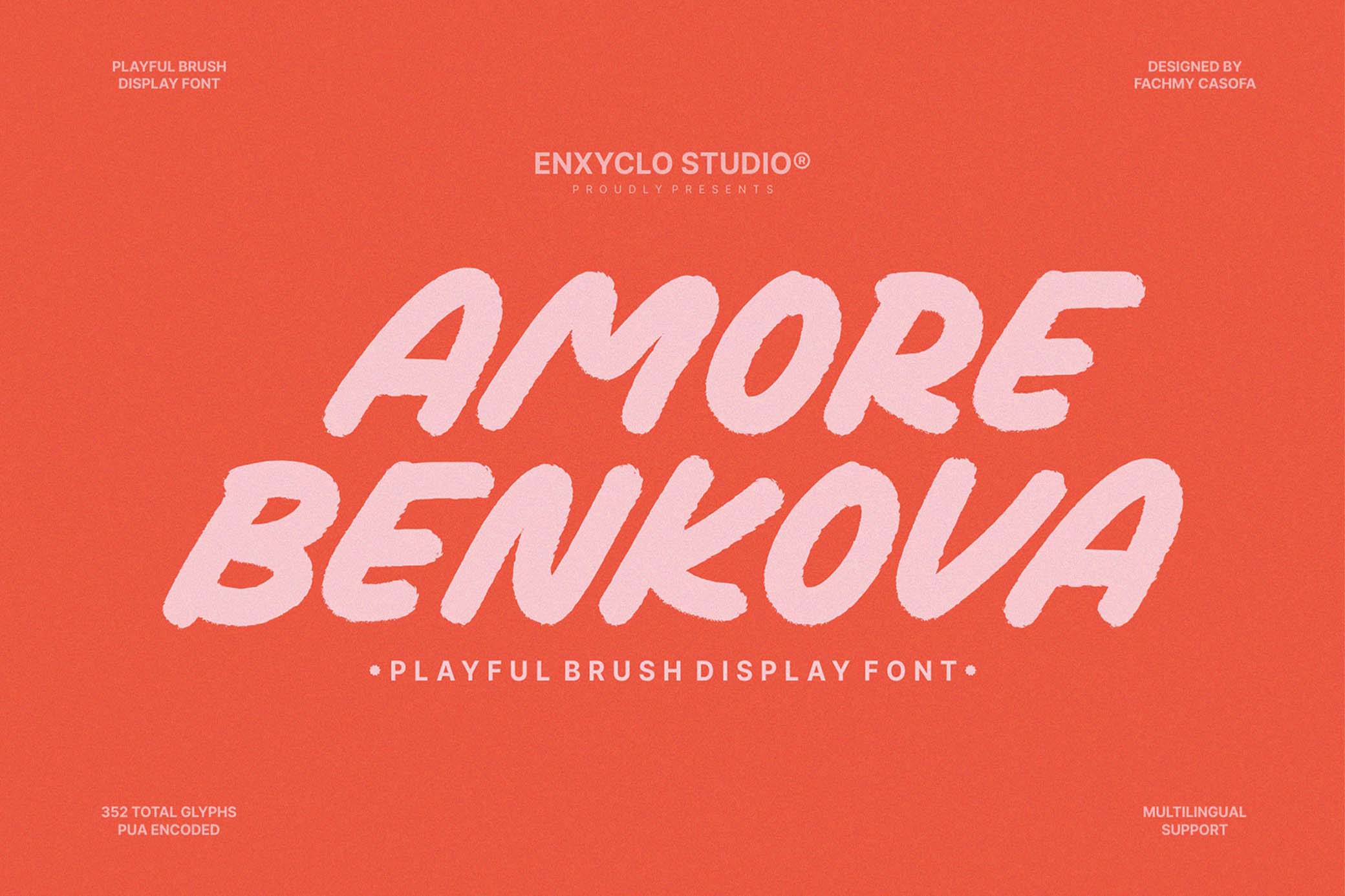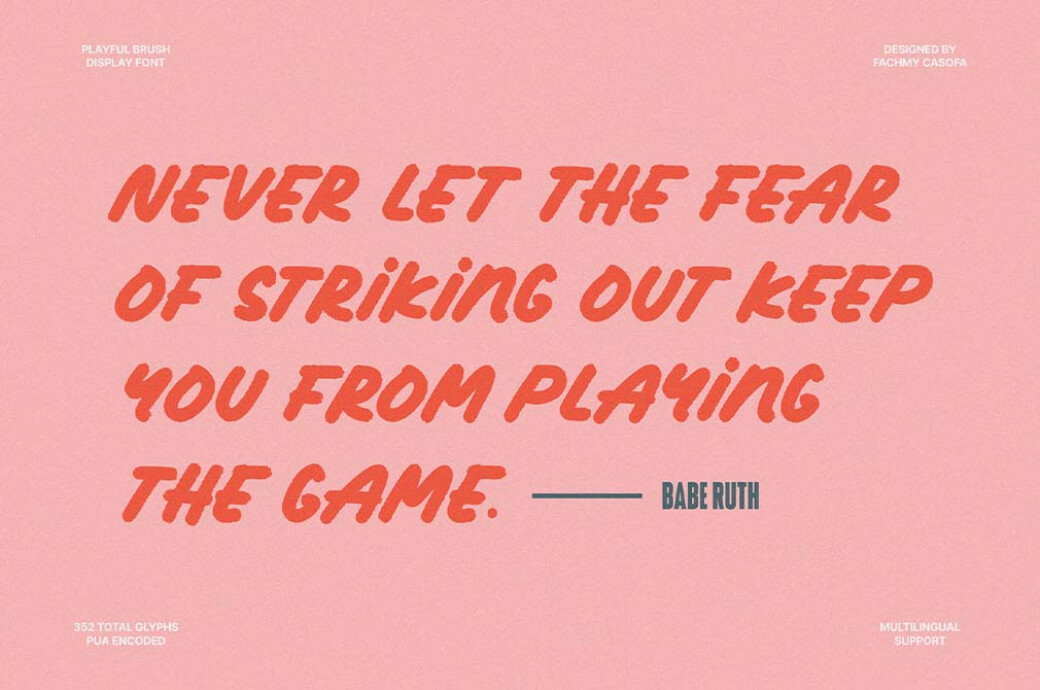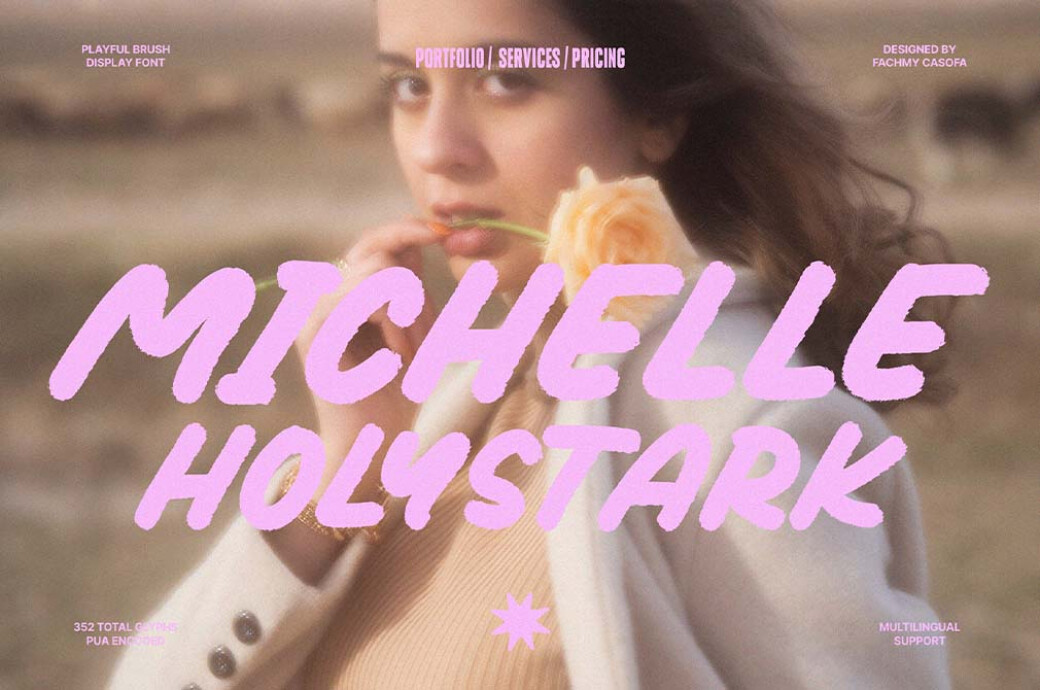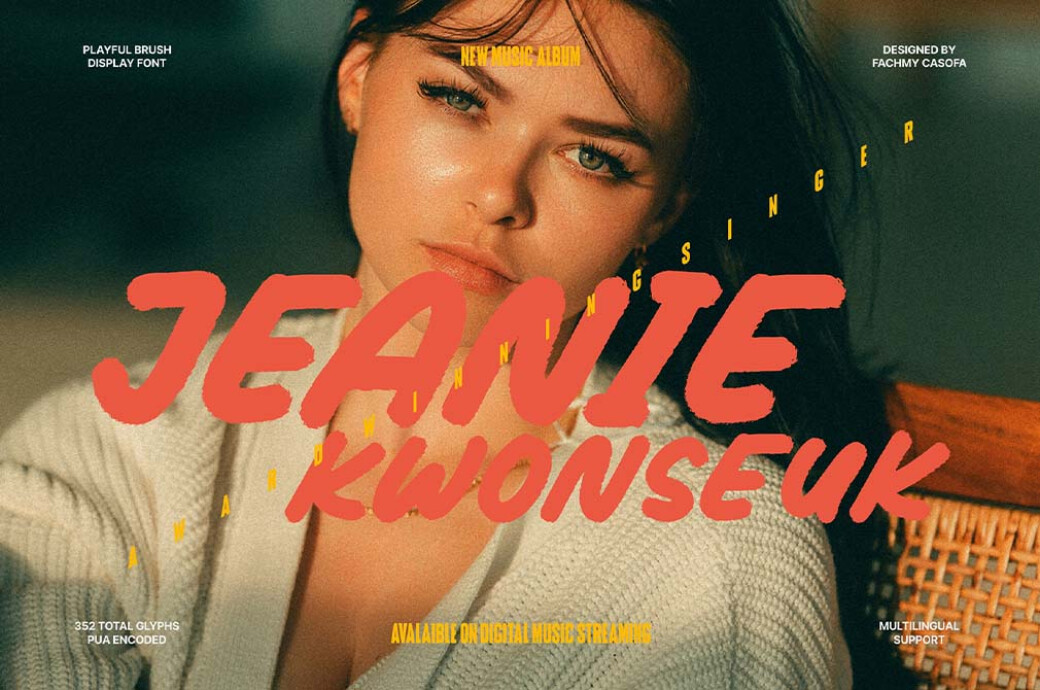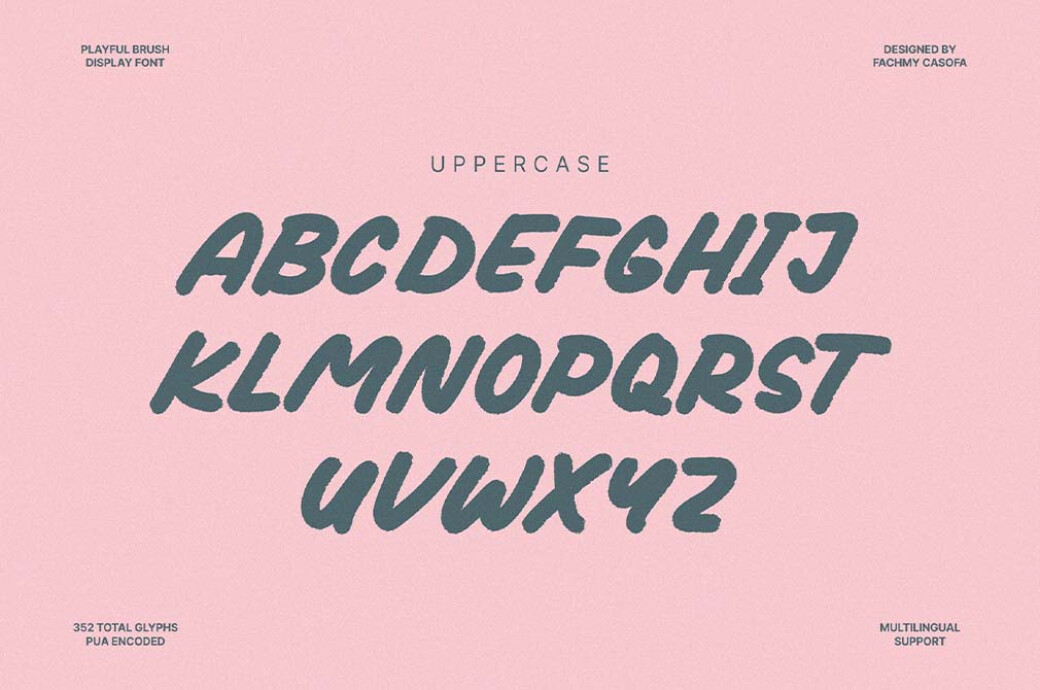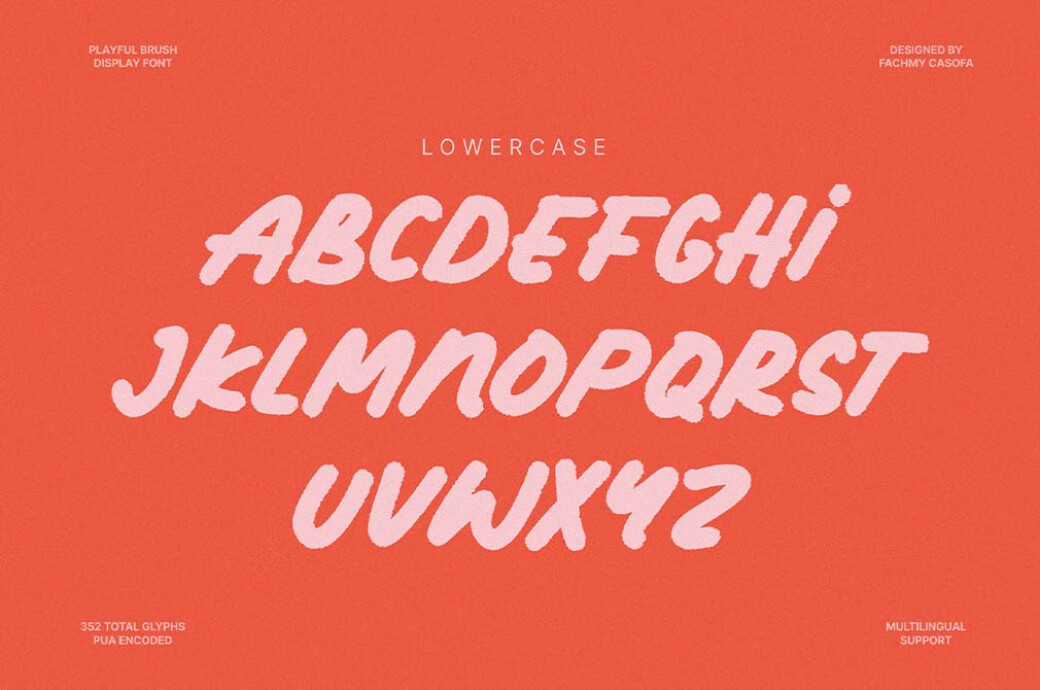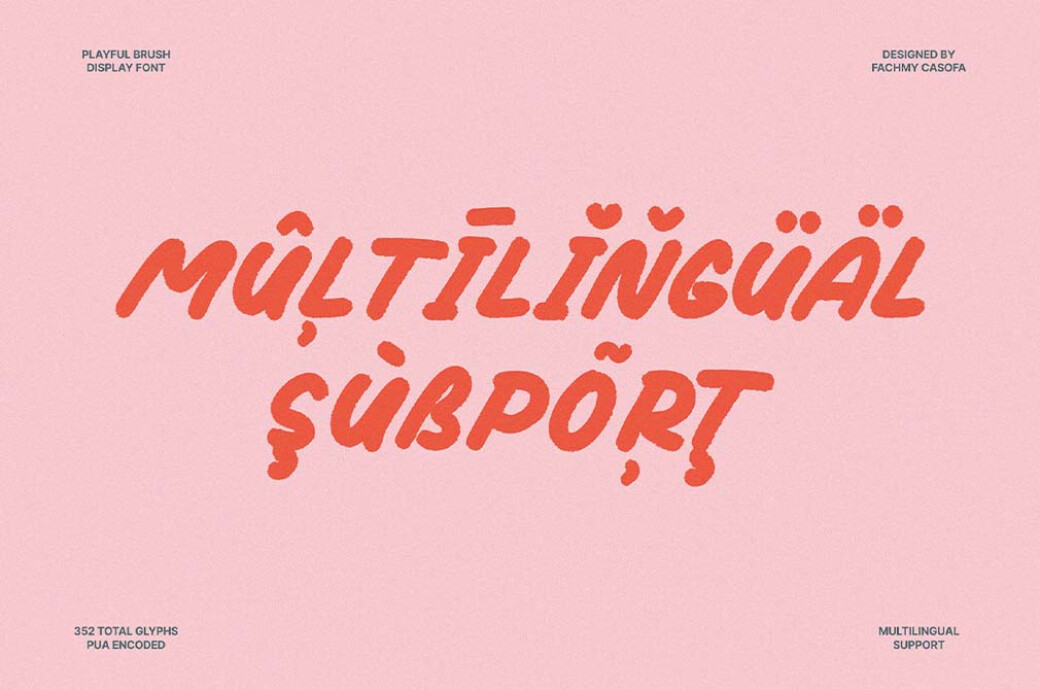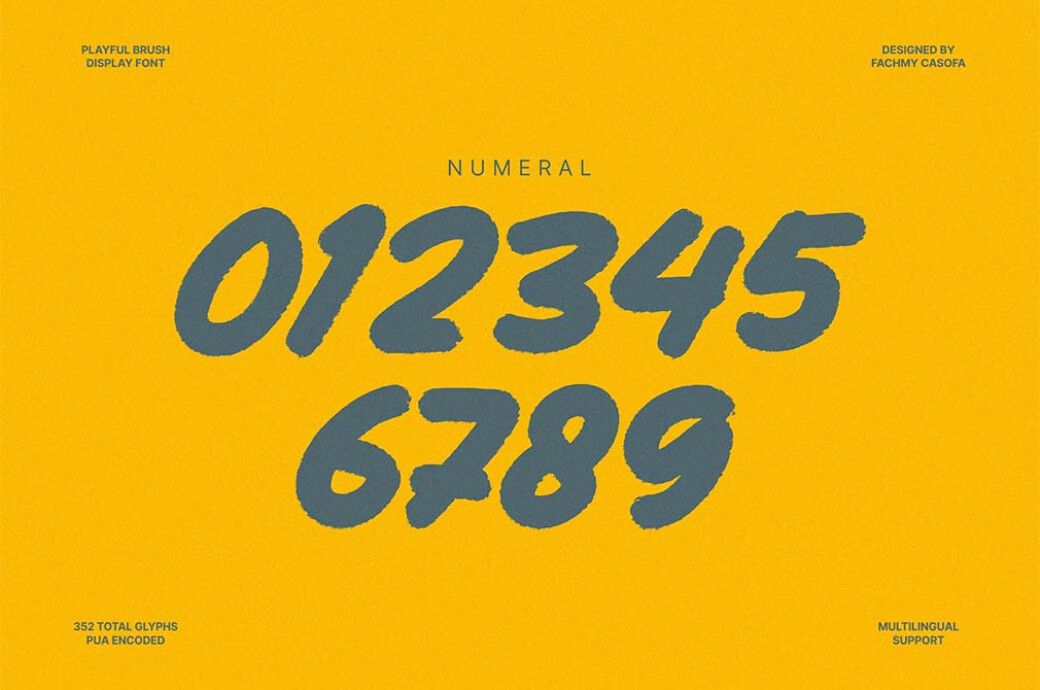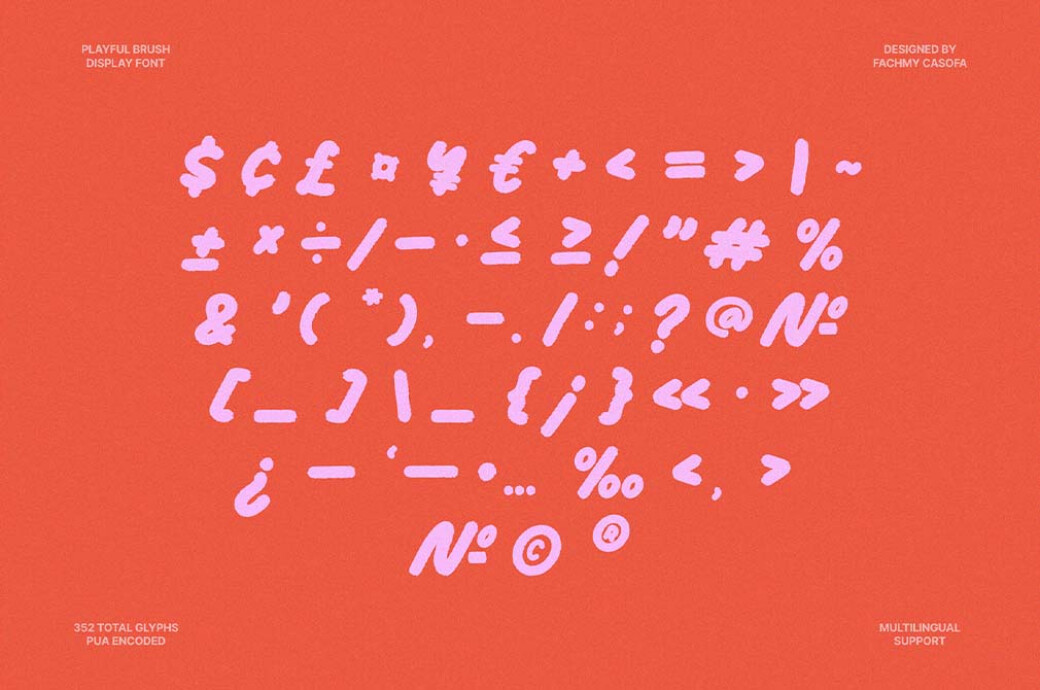
NCL AMORE BENKOVA — Playful Font
We love display fonts that look simple, as if you grabbed a marker and doodled cool writings. Fresh and cool, Amore Benkova reminds us of handcrafted junk journals where you used to scribble titles with colored pens.
Let's create a warm-toned color palette, apply this to your project, and drop a large text written in this bold font. The tandem is literally scooping up some standout summer vibes, innit? Besides this handwritten-like style, you have anything you need to make a statement in352 glyphs. There areuppercase, lowercase, numerals, punctuations, ligatures, and multilingual support. Amore Benkova will highlight invitations, posters, social media banners, merches, and anything that needs a light and sunny atmosphere.